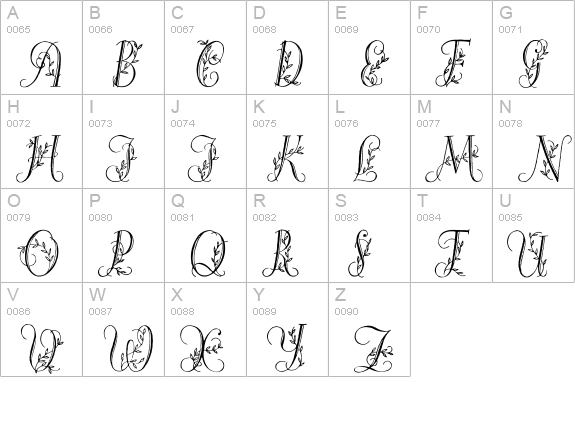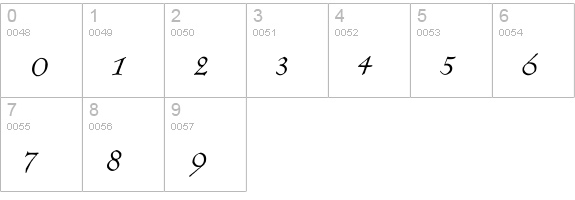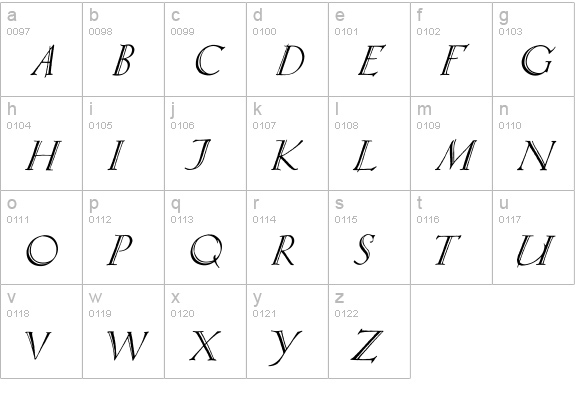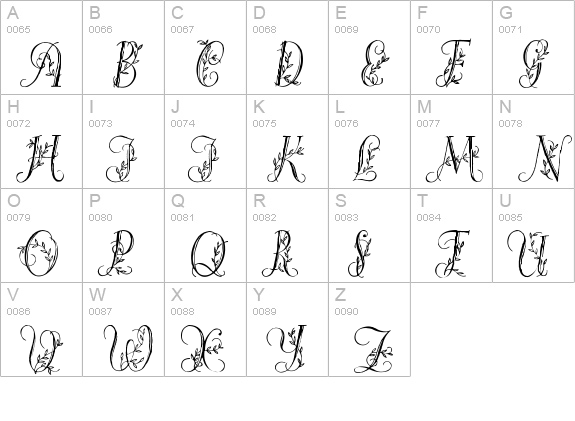
Springtime Capitals Font Details
Introducing Springtime Capitals font, a whimsical and elegant typeface that captures the essence of spring with its delicate curves and playful flourishes. This charming font exudes a sense of freshness and vitality, making it perfect for a wide range of design projects. Springtime Capitals font features beautifully crafted uppercase letters that are adorned with intricate floral motifs, adding a touch of sophistication to your text. Whether you're creating invitations, greeting cards, or branding materials, this font will bring a touch of springtime magic to your designs. The best part is that Springtime Capitals font is available for free download at FontsMarket.com. Now you can easily add a touch of springtime charm to your projects without breaking the bank. Don't miss out on this opportunity to enhance your designs with this lovely and versatile font. Download Springtime Capitals today and let your creativity bloom!